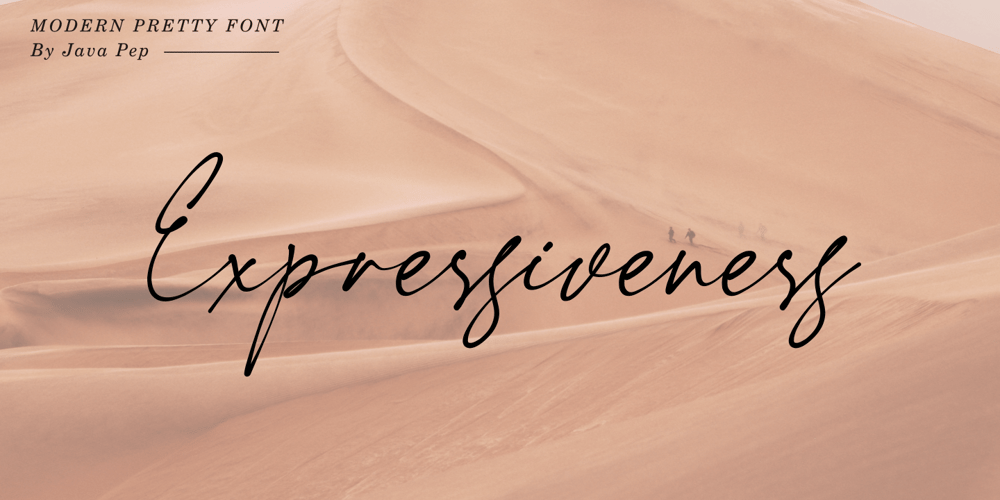
Expressiveness
Expressiveness font
Expressiveness Font Family was designed by Java Pep and published by Java Pep. Expressiveness contains 1 styles and family package options. Our newest font inspired by handwriting style is called Expressiveness This font comes with modern and pretty looks that will express your design more standout and elegant. Let’s express your mind with Expressiveness.What features are included – PUA encoded- Open Type features- Multilingual support 17 languagesIf you have questions about technical support or overall this font, don’t hesitate to drop me a message. Thanks and have a nice day ๐Ÿ™‚